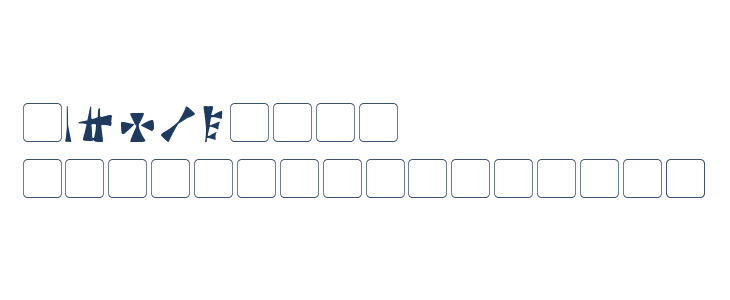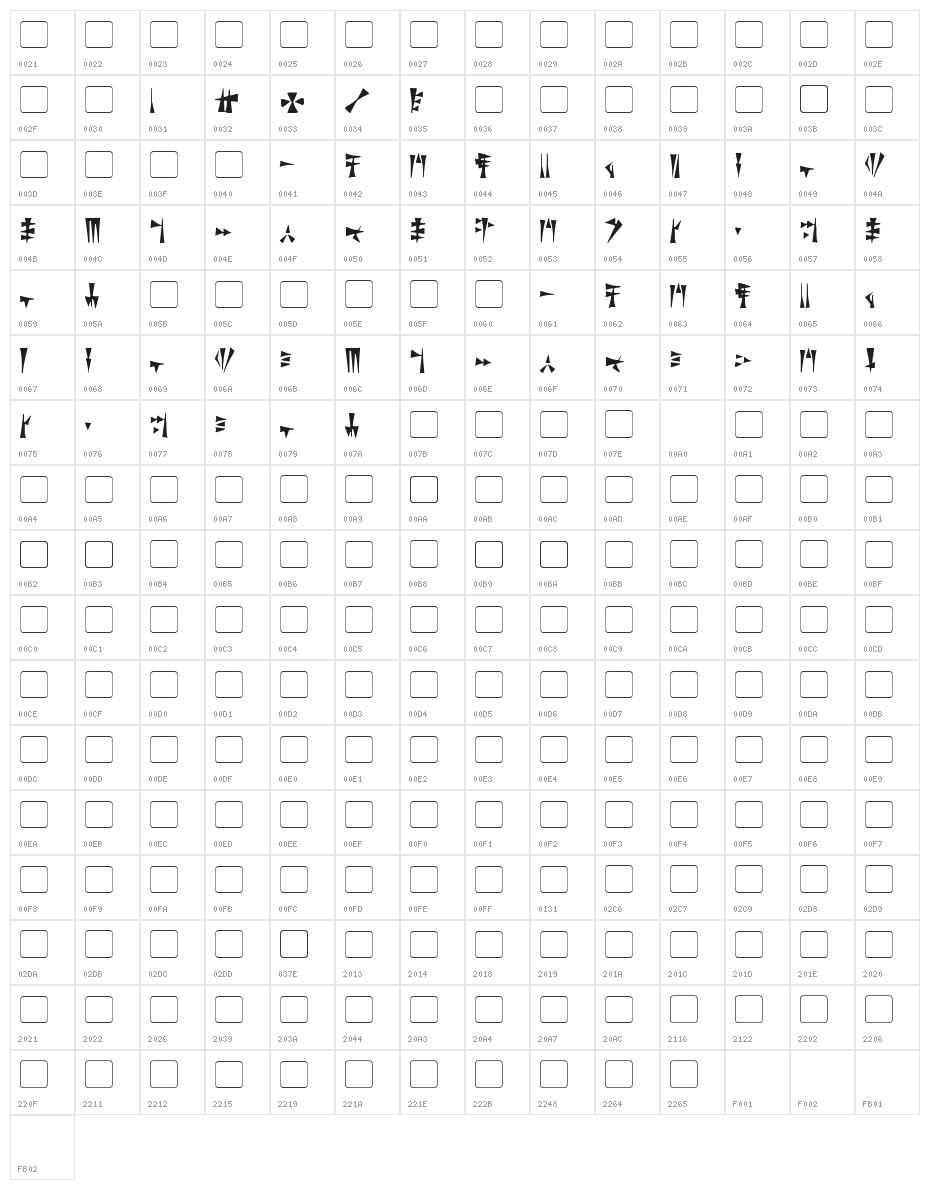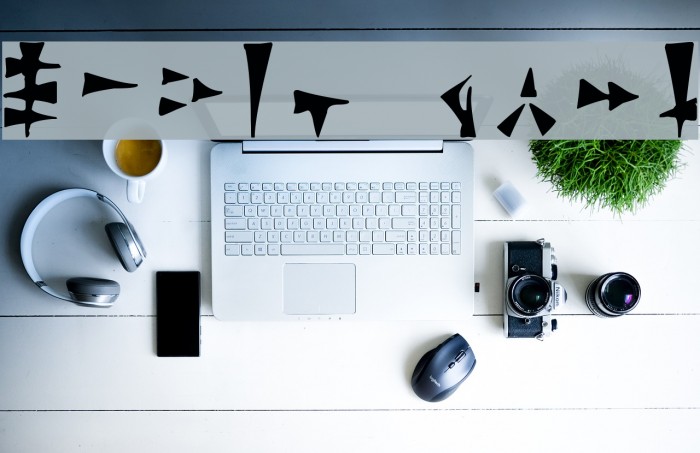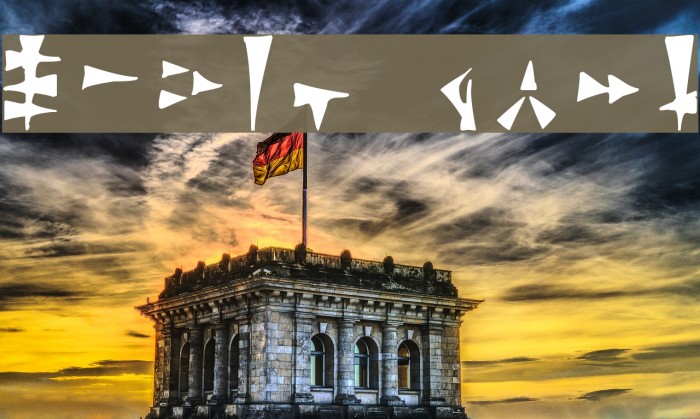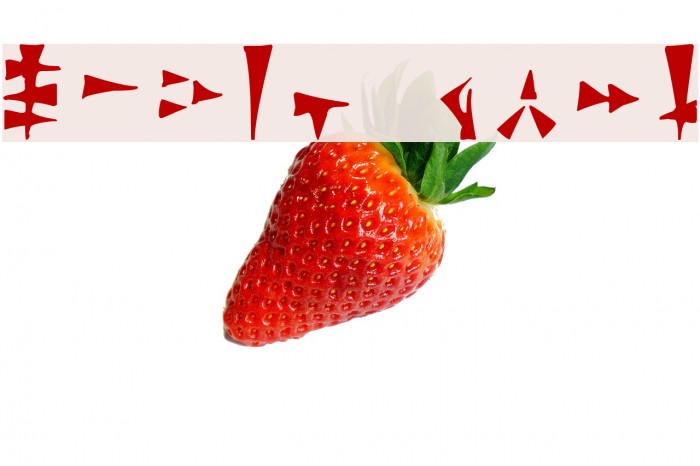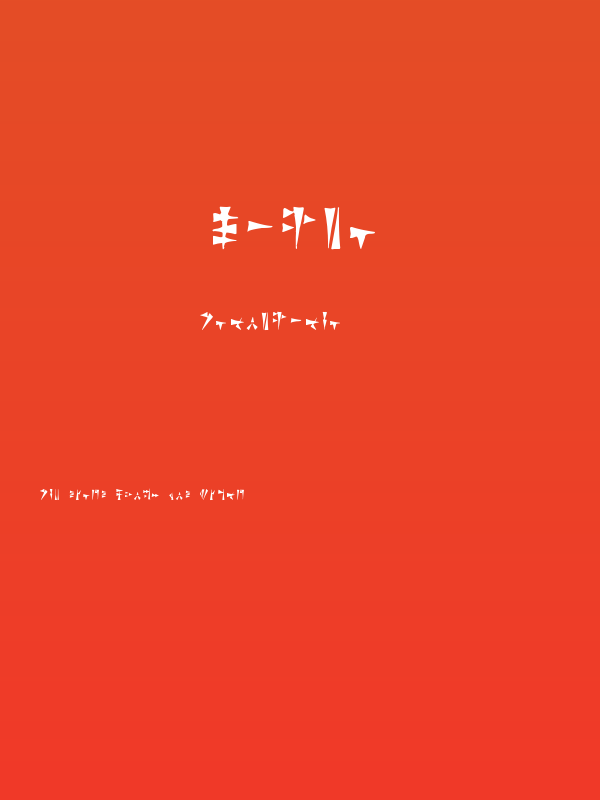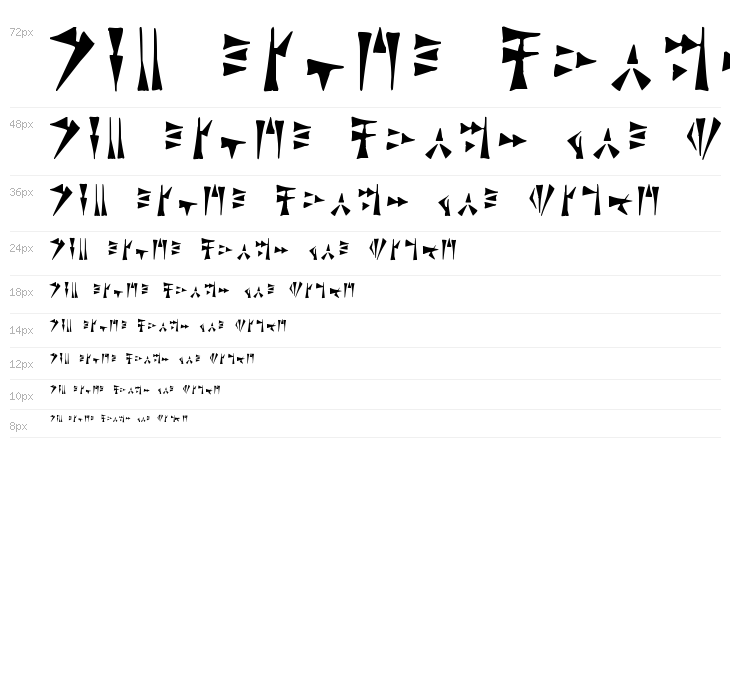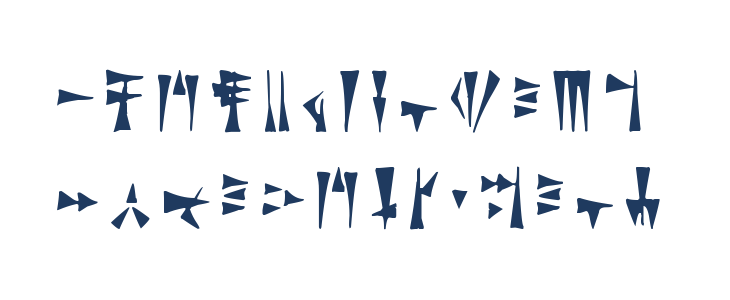
Kargi Font
Kargi Description
This font features a highly decorative and abstract design, reminiscent of ancient scripts or symbolic art. Each character is crafted with bold, angular strokes that create a sense of mystery and intrigue. The letters are not immediately recognizable as traditional Latin characters, suggesting a purpose more aligned with artistic expression or thematic design rather than readability. The overall appearance is striking and unique, with a strong emphasis on geometric shapes and sharp contrasts. This font would be ideal for projects that require a distinct and unconventional aesthetic, such as fantasy-themed graphics or artistic installations.
| Use Case | Logos, Artistic designs |
| Proposed Projects | Ideal for fantasy-themed graphics, artistic installations, or projects requiring a unique aesthetic. |